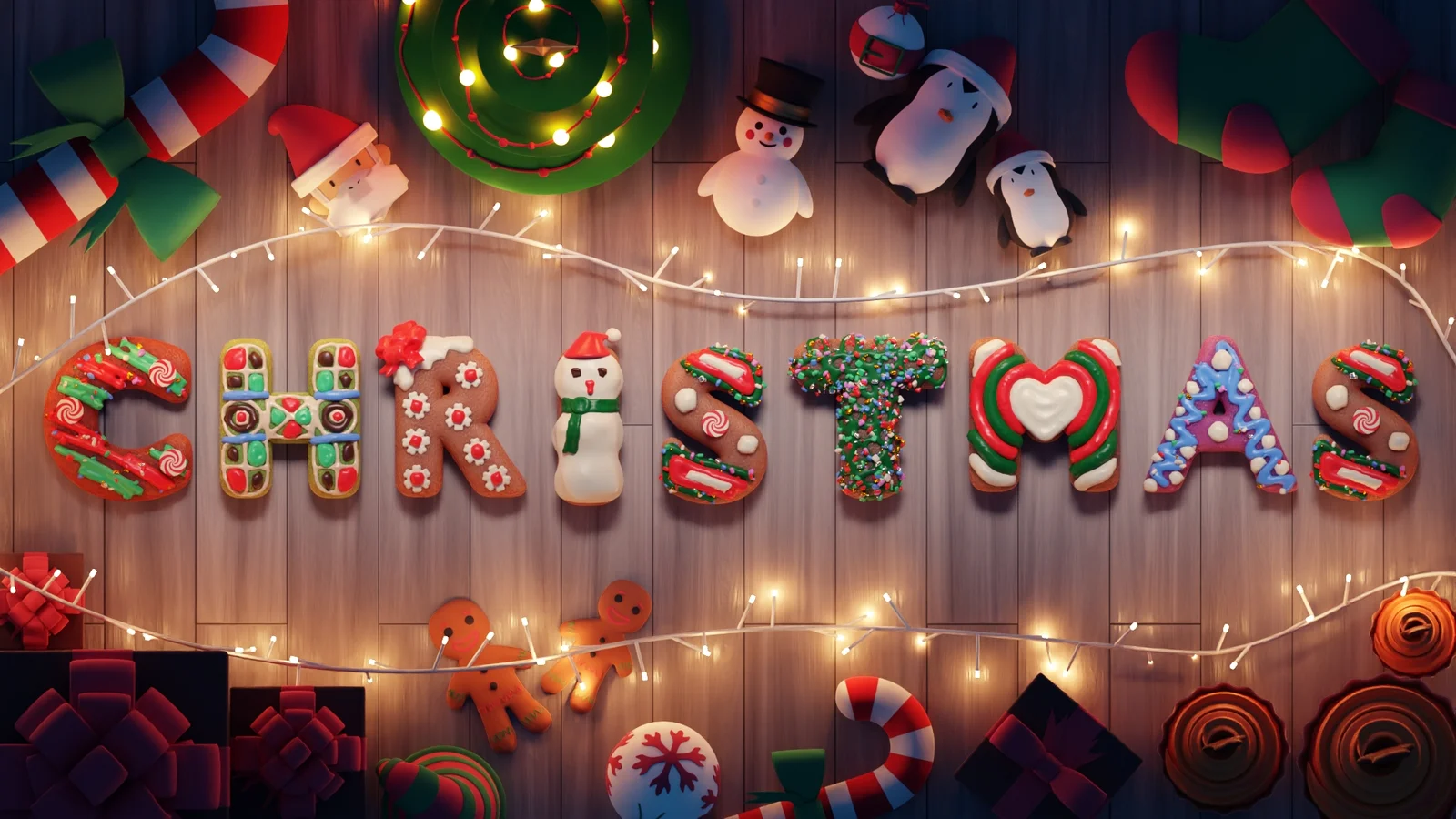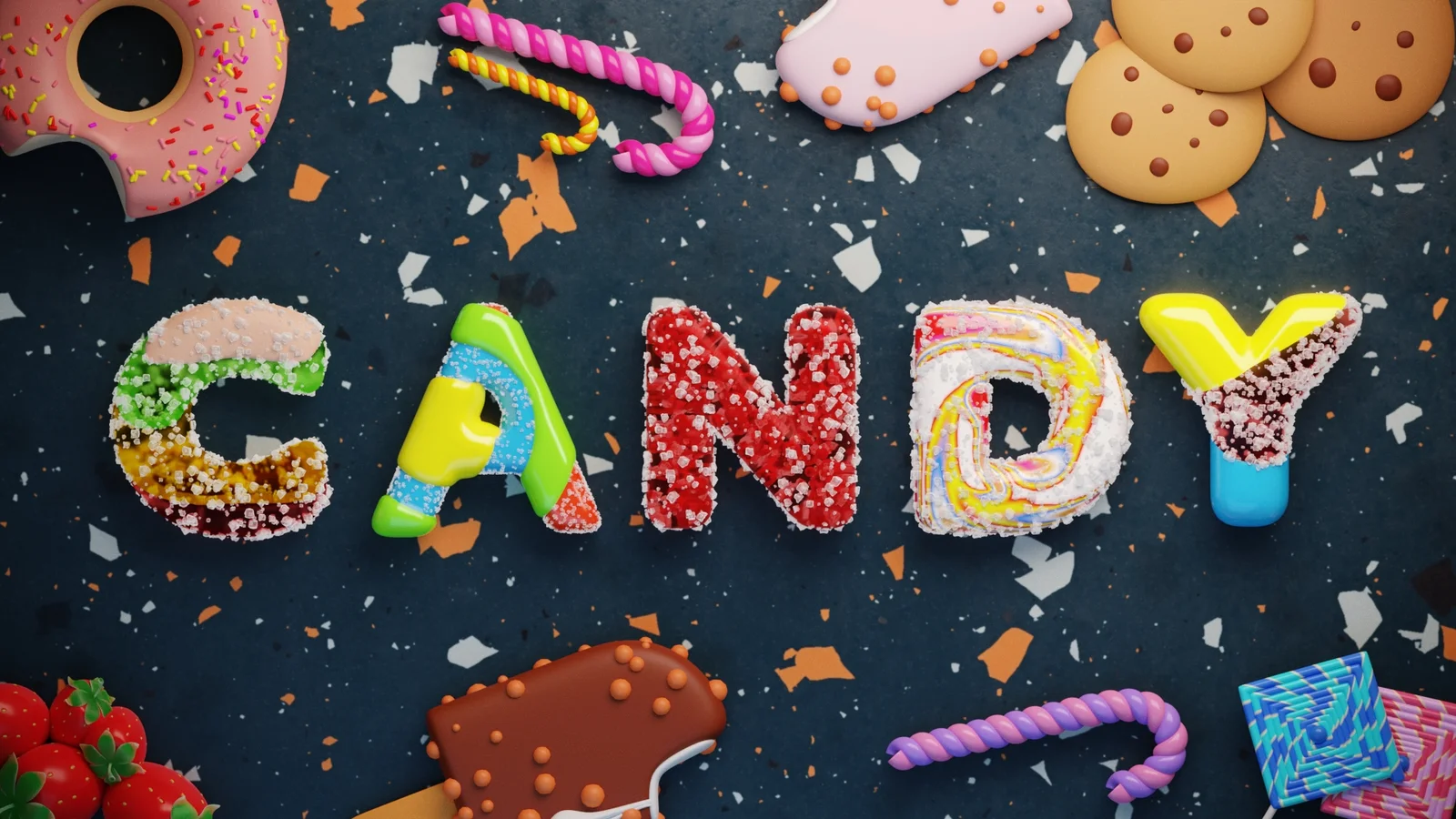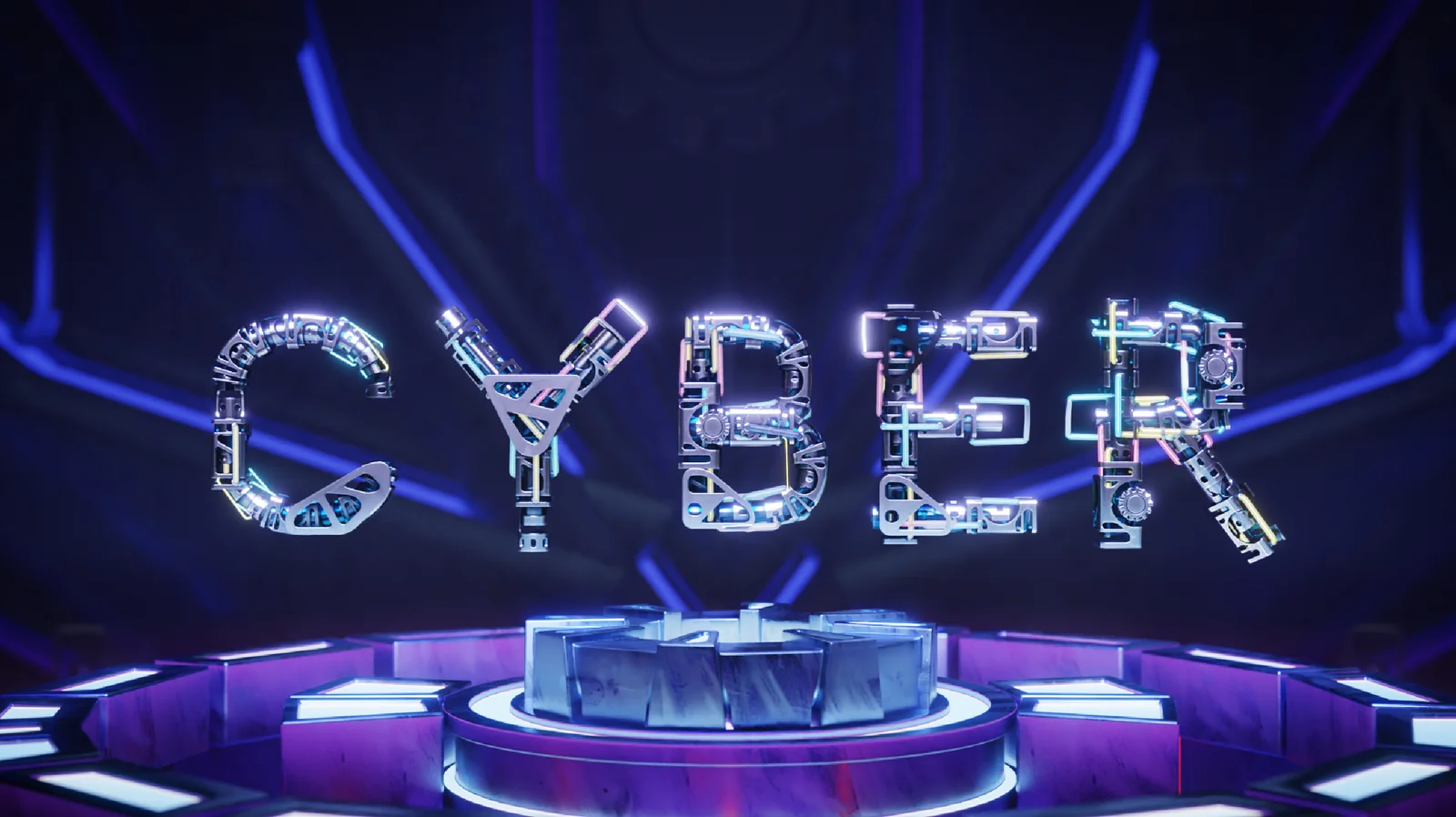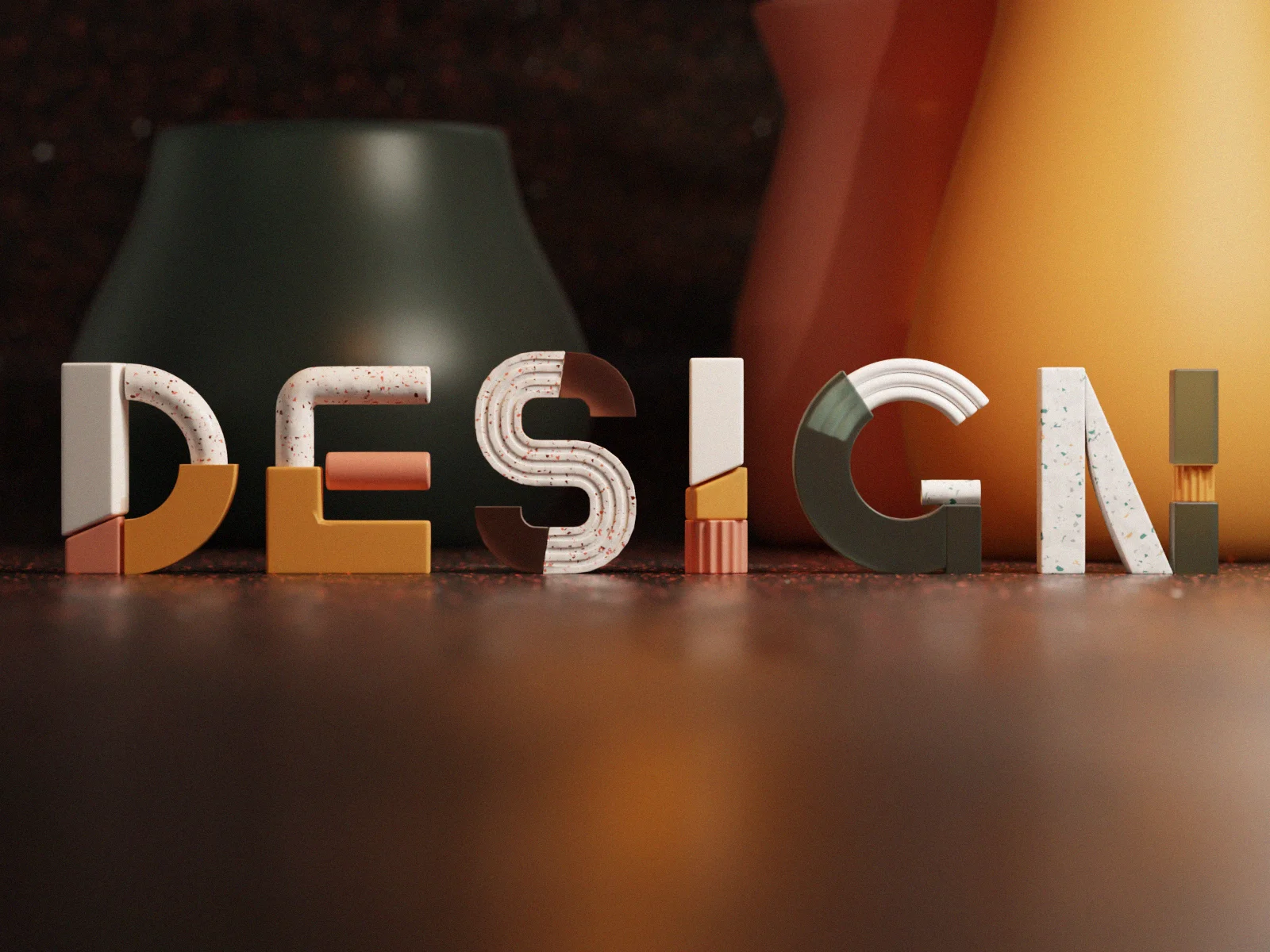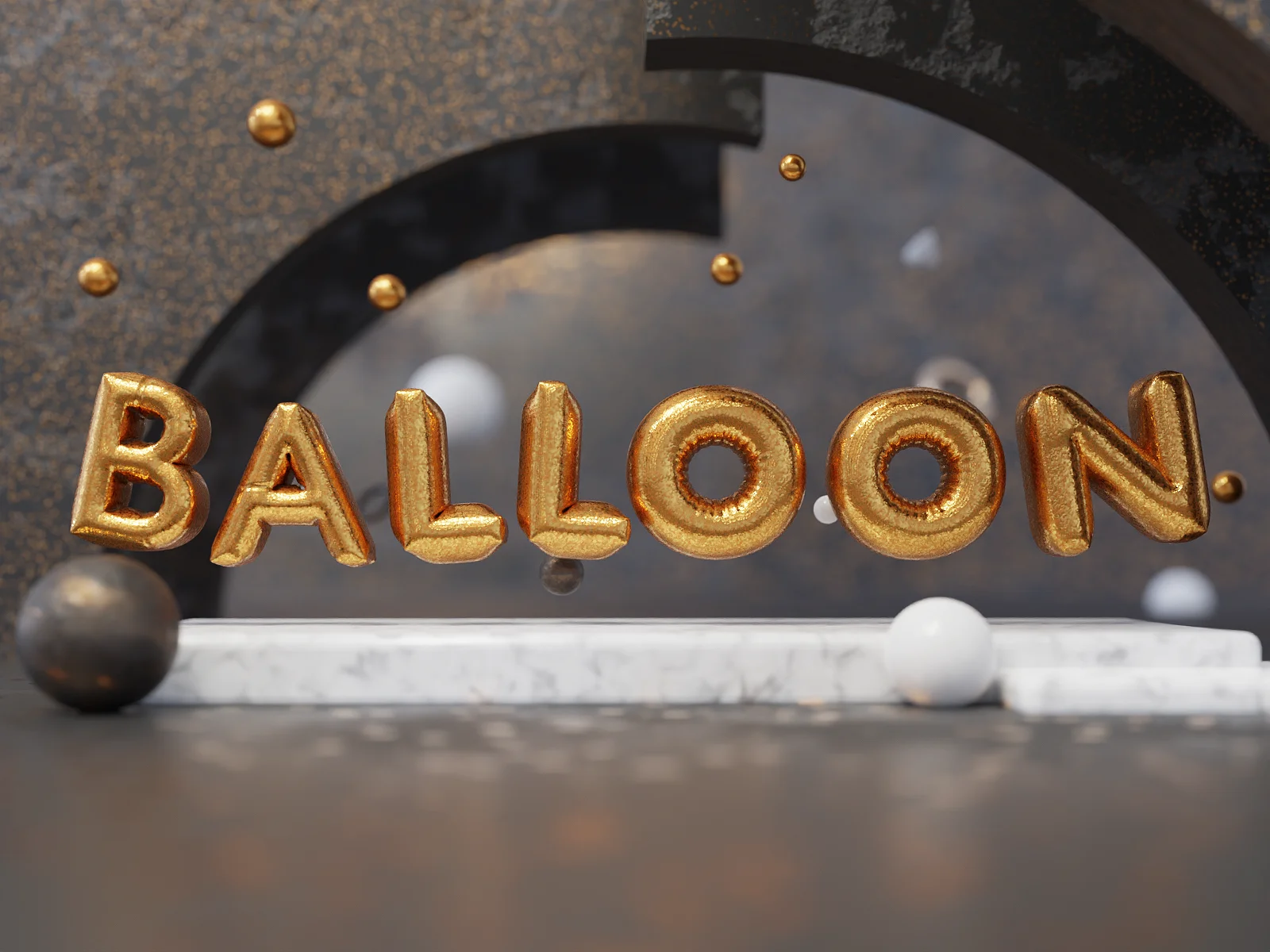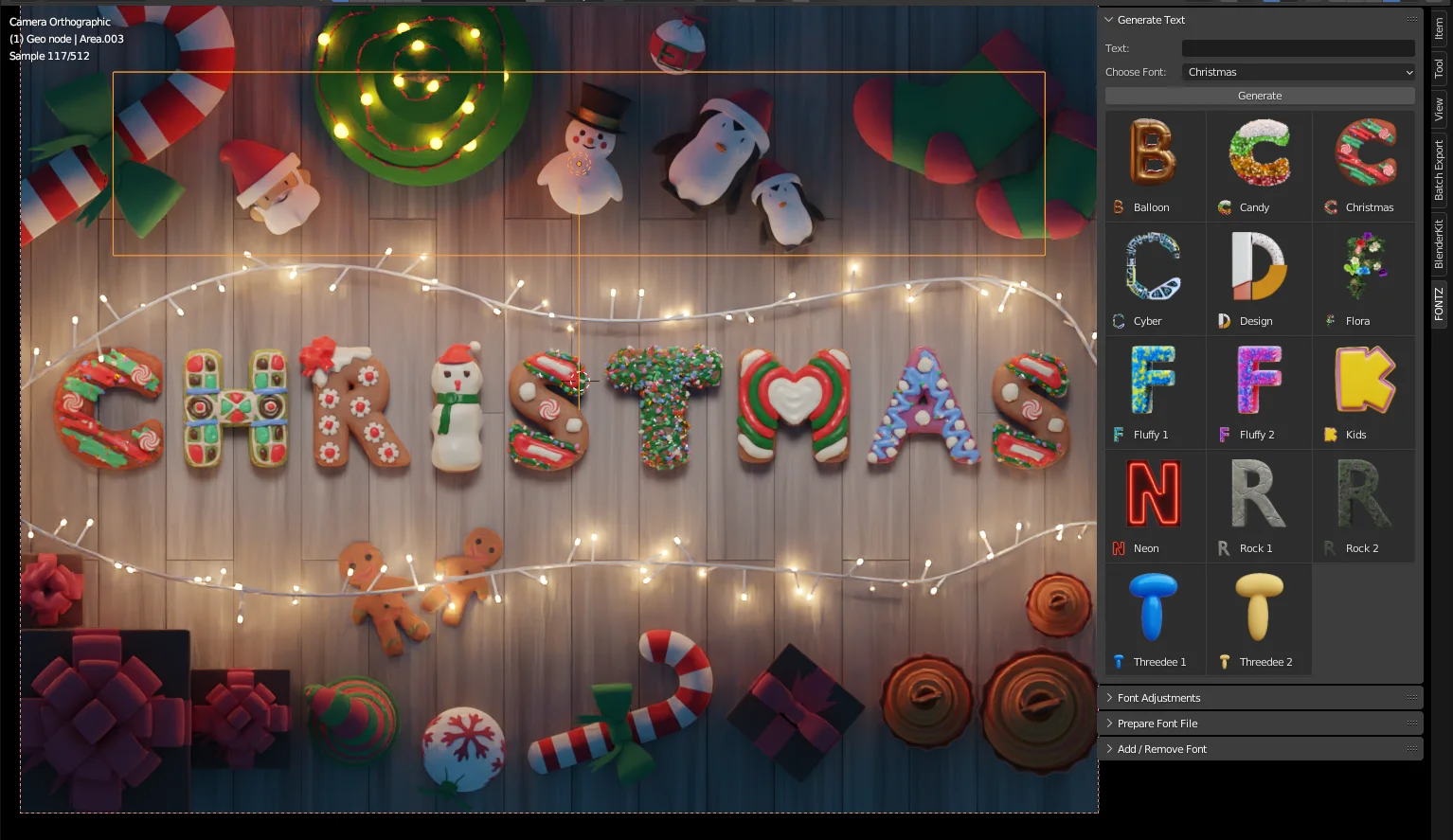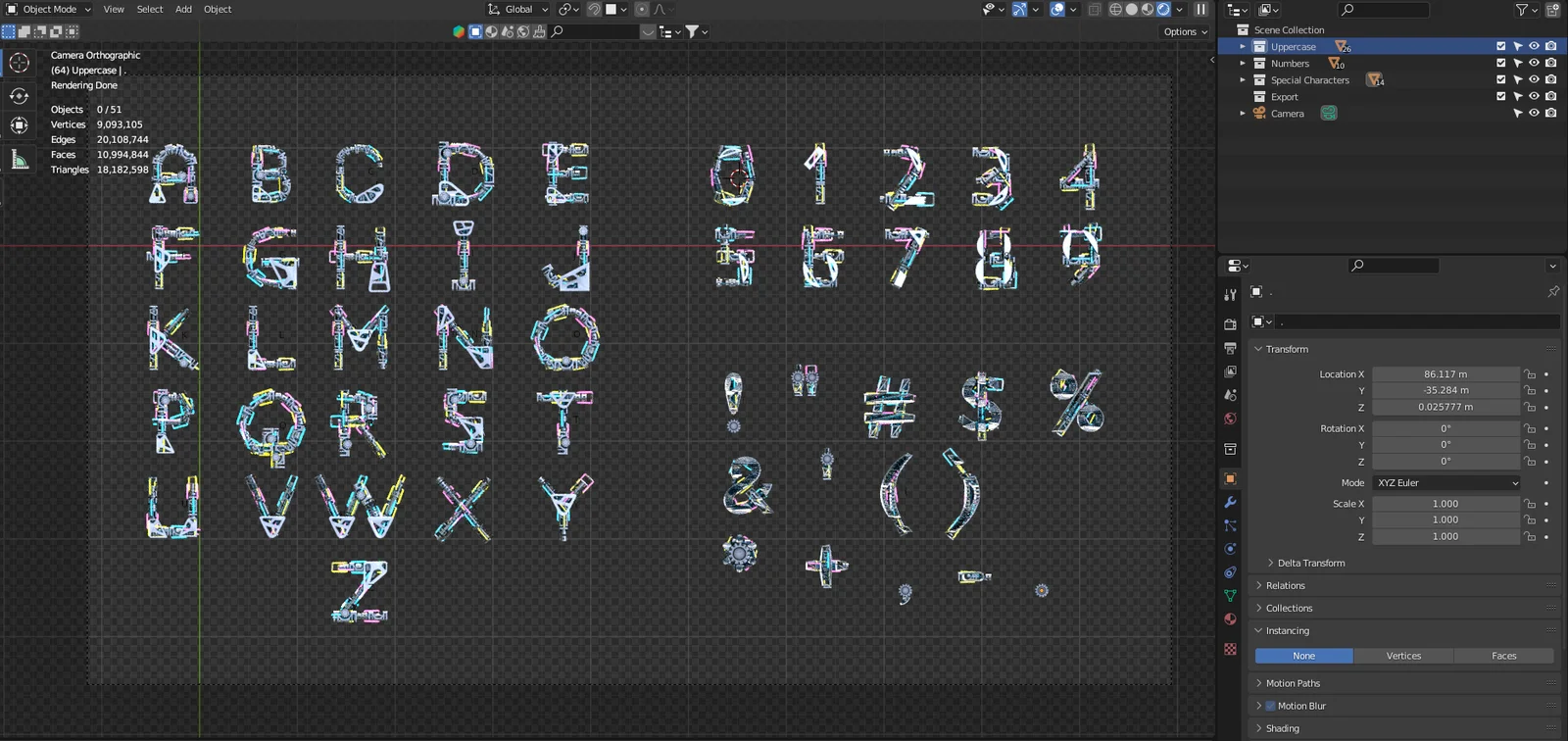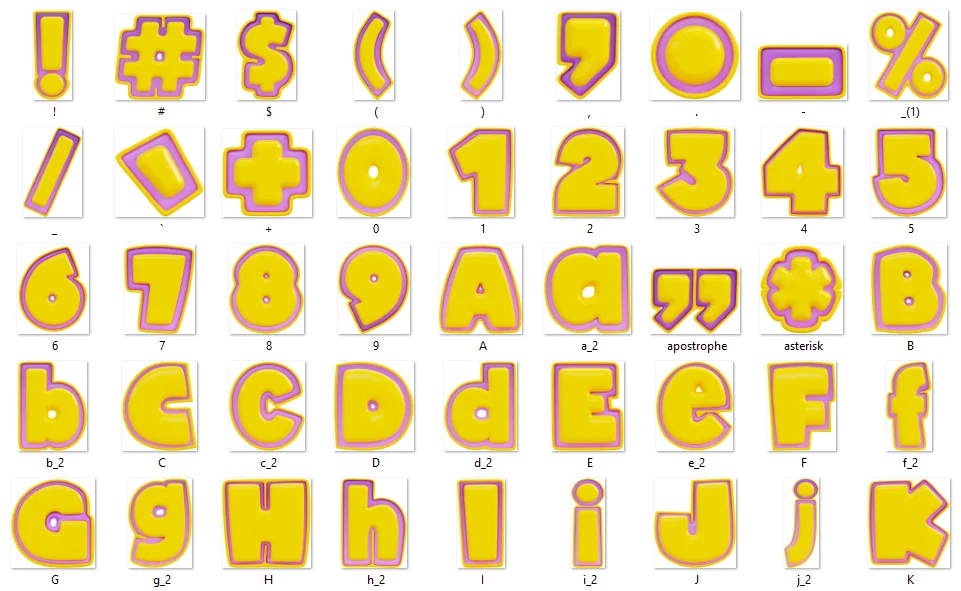
FONTZ Premium is a collection of 14 stylized 3D fonts accompanied by a dedicated Blender add-on. The add-on allows users to type directly within Blender using the provided 3D letters, bypassing the need to manually place individual character models. It also supports importing and managing custom 3D fonts.
The included font styles cover various themes, such as Cyber, Flora, Neon, and Inflate. All fonts include uppercase letters, numbers, and special characters, with several styles also providing lowercase letters. The package includes the original source files as well as pre-rendered transparent PNGs for use in standard 2D design applications.